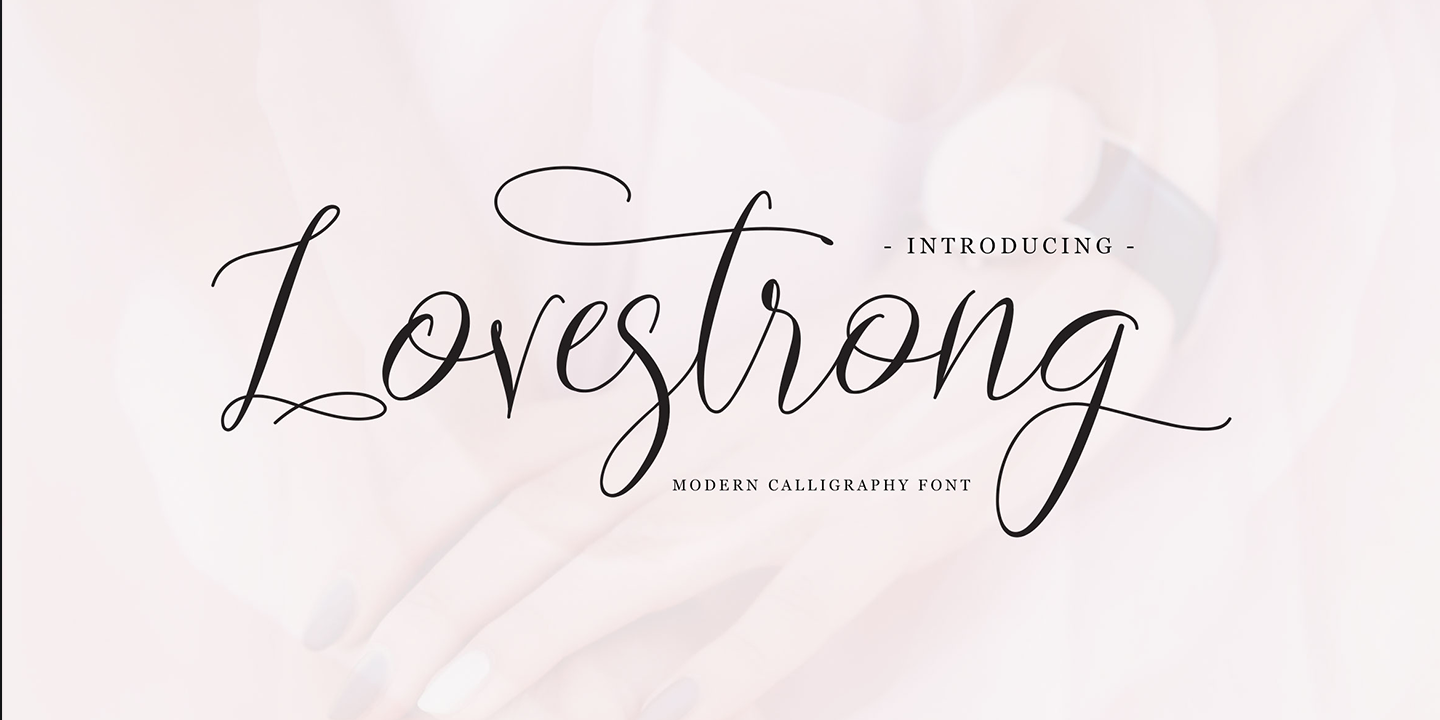
Lovestrong Font is perfect for a wide range of creative projects, including wedding invitations, romantic greeting cards, elegant branding, social media graphics, and apparel designs. Its beautiful, flowing script makes it ideal for anything that needs a touch of romance and sophistication.
What makes Lovestrong Font truly exciting is its unique blend of classic elegance and modern flair. Its handcrafted feel adds a personal touch to any design, making your text stand out with charm and authenticity. The gentle curves and delicate swashes exude a feeling of warmth and intimacy, captivating your audience and leaving a lasting impression. It's more than just a font; it's an expression of heartfelt sentiment.
The Lovestrong Font family typically includes various weights and styles such as regular, bold, and italic, offering versatility for different design needs. Some versions may also feature a variety of ligatures and alternative characters, allowing for even greater customization and unique typographic compositions. Enhance your design projects with Lovestrong Font Free Download and add that special touch of handcrafted beauty.